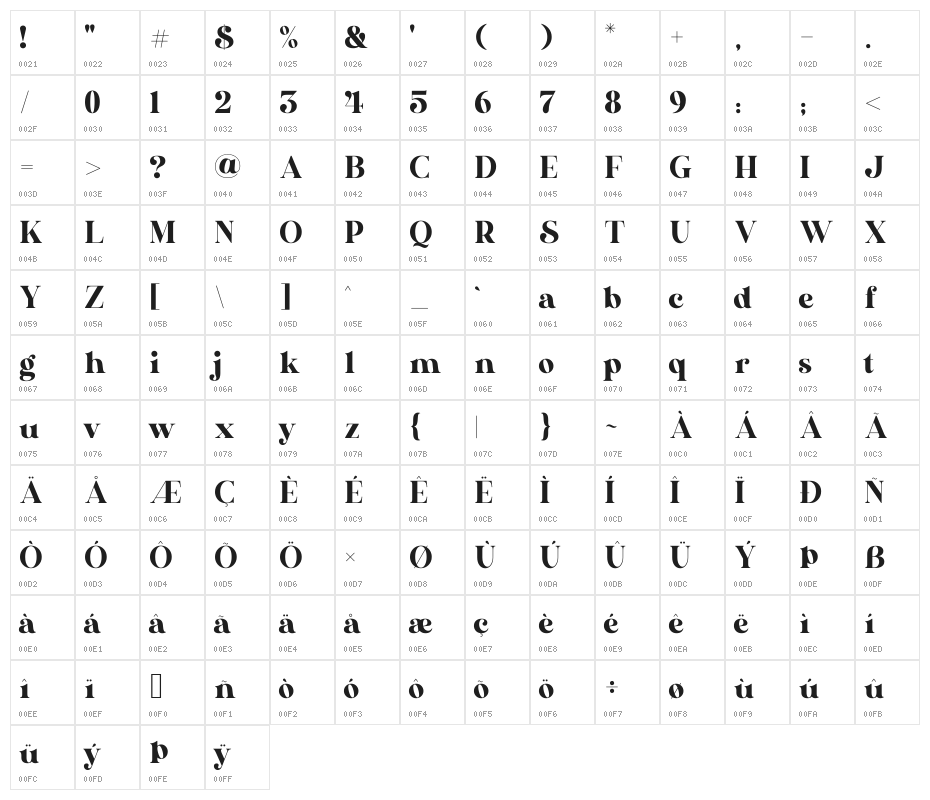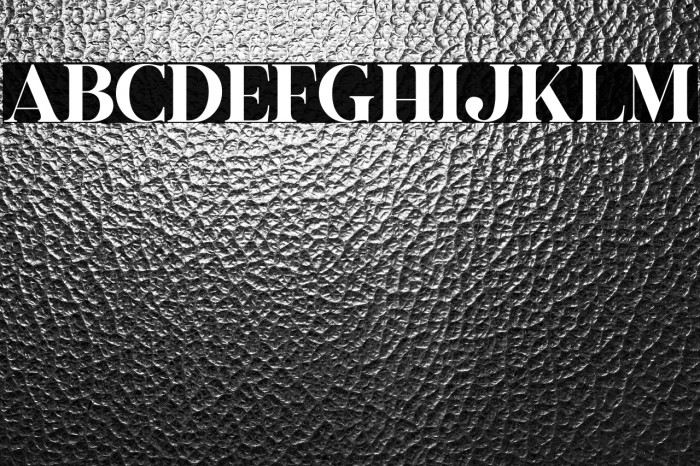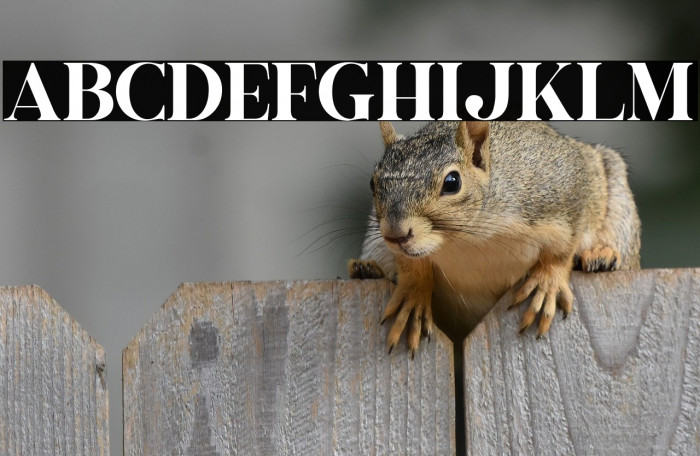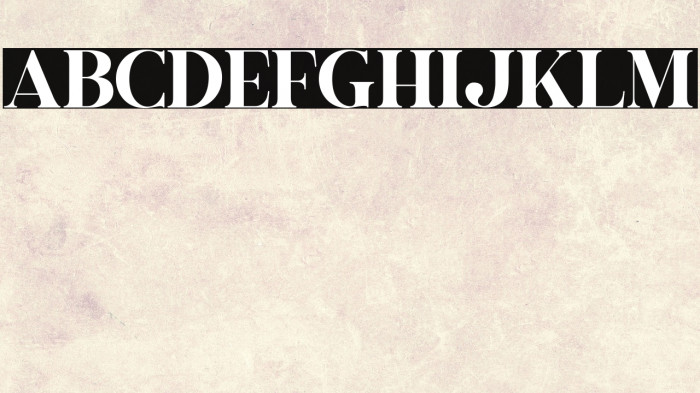
Nevrada_Neue Font
Nevrada_Neue Description
This font features a bold and striking design with high contrast between thick and thin strokes, giving it a dramatic and elegant appearance. The uppercase letters are particularly prominent, with sharp serifs and a classic style that commands attention. The lowercase letters maintain a consistent style, with rounded forms and distinctive serifs that add a touch of sophistication. The numerals are equally bold, ensuring readability and impact. Special characters are designed with the same attention to detail, making them suitable for a variety of uses. Overall, this font combines traditional serif elements with a modern twist, making it versatile for both formal and creative projects.
Proposed ProjectsIdeal for branding, editorial design, book covers, and luxury product packaging.